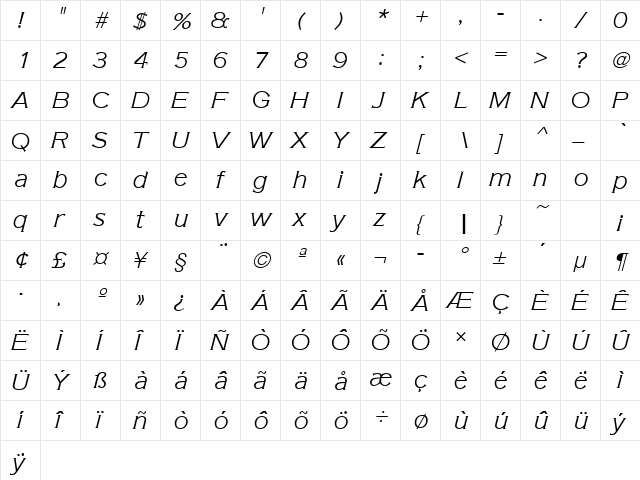
AmericanGotURWTLig Italic Font Preview
AmericanGotURWTLig Italic
Design Context for AmericanGotURWTLig Typeface
AmericanGotURWTLig takes a measured approach to typography — its balanced proportions and neutral character make it a reliable workhorse for both digital and print work. The slanted form adds forward momentum and visual energy.